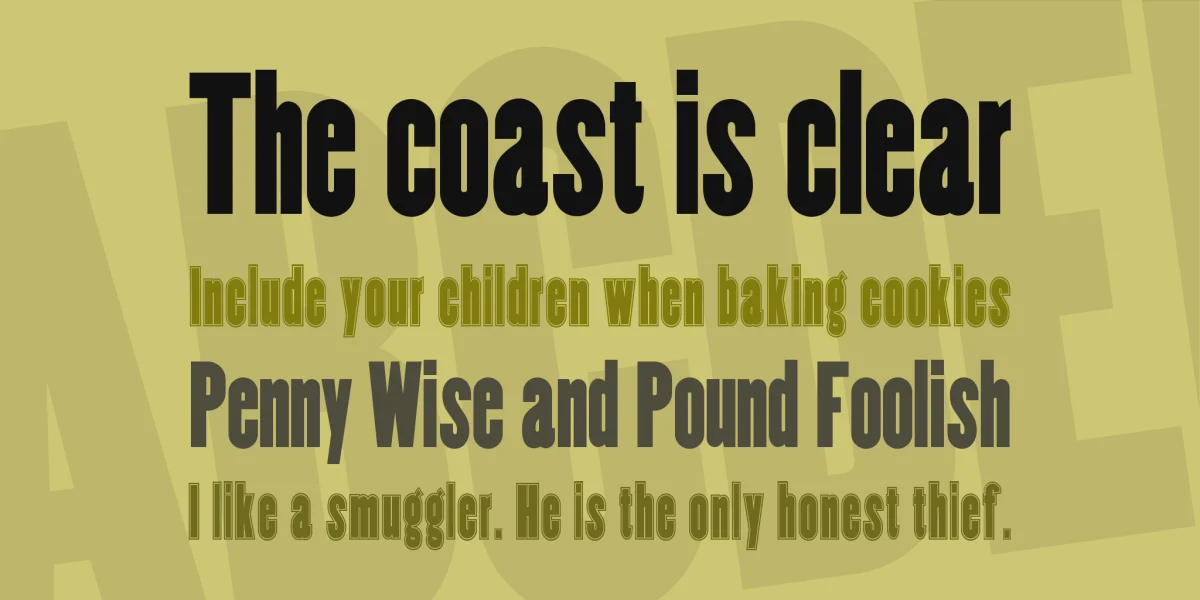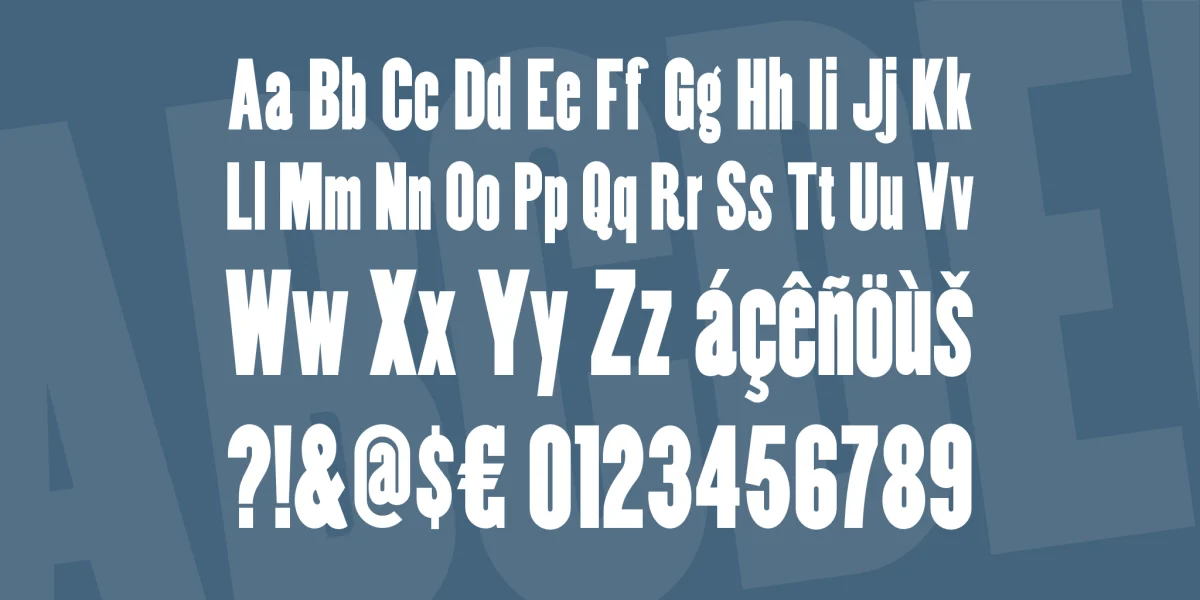
The first in the Whiz-Bang Wood Type series, Copper Canyon’s letterforms are based on Adobe Poplar, but more condensed. All the fonts in this series are meant to be set big and tight. Both PC and Mac fonts contain complete professional character sets. Named for a town in North Texas, which has neither copper nor canyons (it’s really pretty suburban), but it sounds awfully Western.